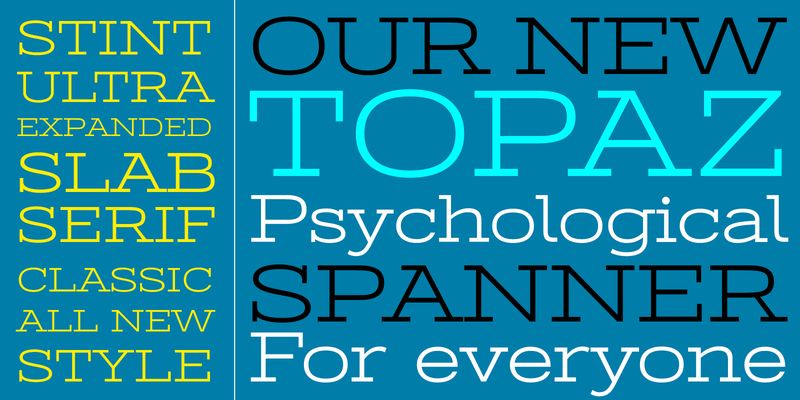
Stint Font Free Download is a clean and modern serif typeface designed for readability and elegance. With its refined letterforms and subtle curves, this font is ideal for both print and digital projects, including editorial design, branding, websites, and marketing materials.
Stint Font Free Download features balanced proportions and high legibility, making it a versatile choice for various applications. Its timeless design and classic feel provide a sense of professionalism while maintaining a modern aesthetic.
Whether you're working on professional publications, creative projects, or a corporate brand, Stint brings a polished and sophisticated touch to your typography.